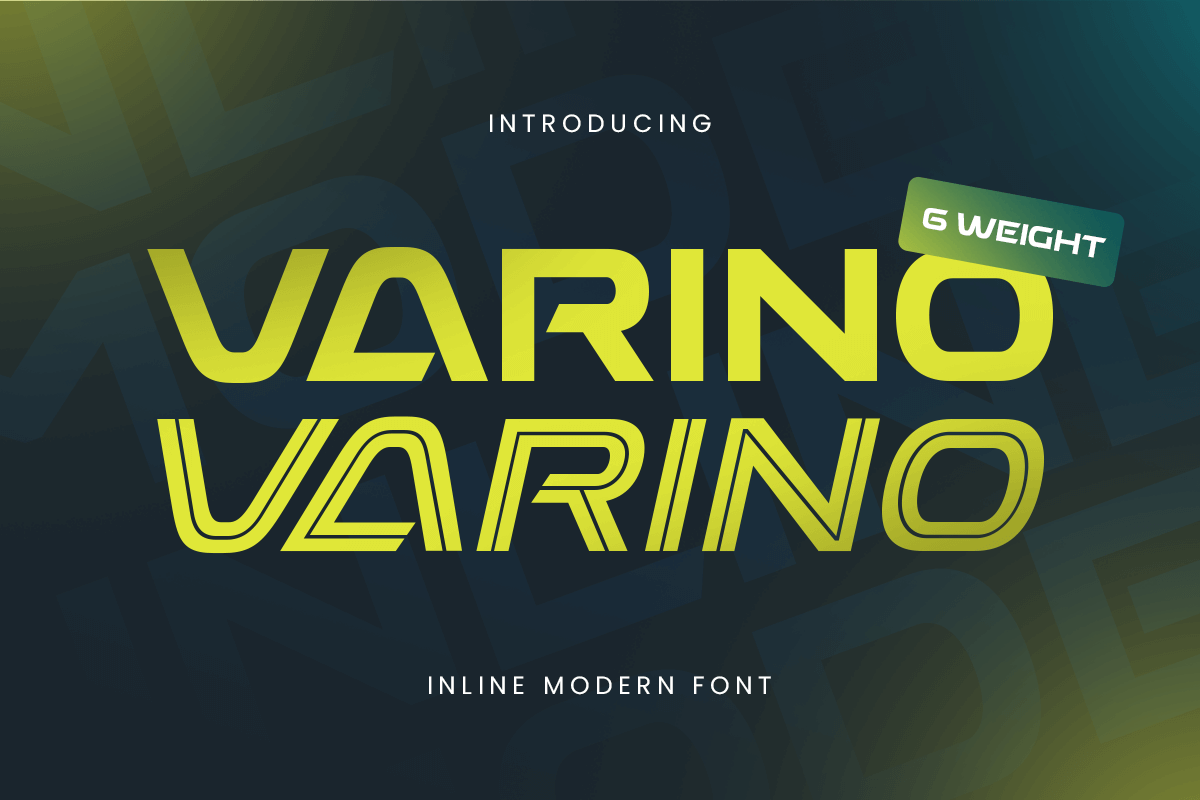
Varino
-Inline Modern Font Family
Varino - Inline Modern Font Family
Varino is a stylish and contemporary display font featuring a distinctive inline style that adds depth and flair. With clean lines and modern proportions, Varino is ideal for posters, logos, magazine layouts, fashion branding, packaging, and creative projects that aim to leave a bold impression.
Its inline detailing gives a layered and dynamic look—perfect for modern brands that want to feel unique and edgy. Whether you're working on print or digital formats, Varino brings a fresh, confident personality to your designs with high visual impact. Elevate your work with Varino—a font that’s modern, memorable, and made to stand out.
Varino Inline Modern Font Features:
• Unique Modern Display Technology Style
• Ready with 6 Variations to make it more unique
• Great for Posters, Logos, Branding & Editorial Use